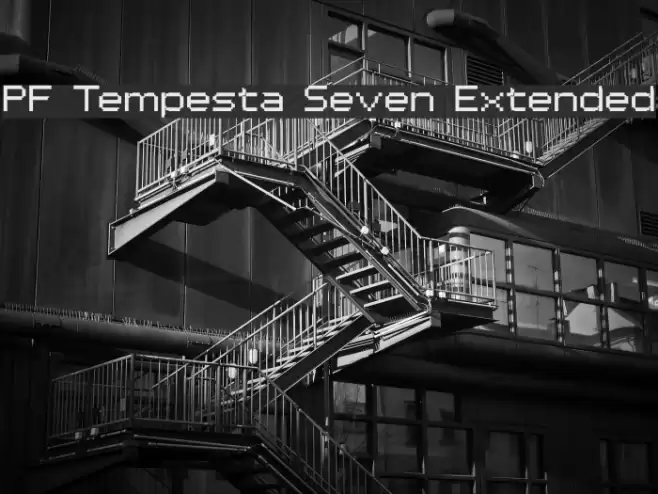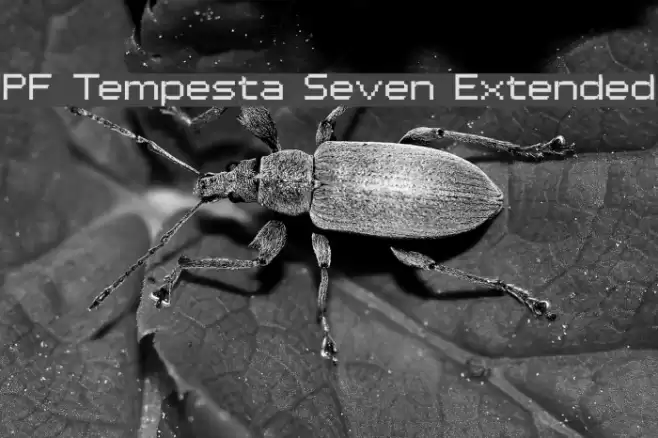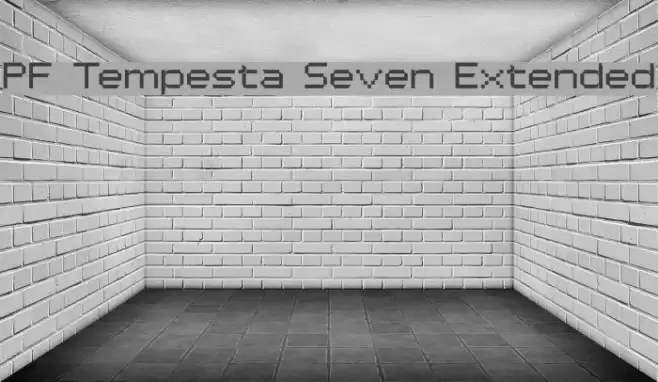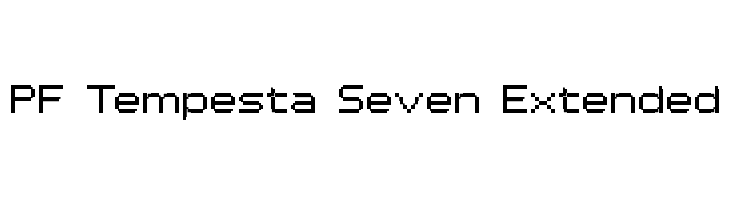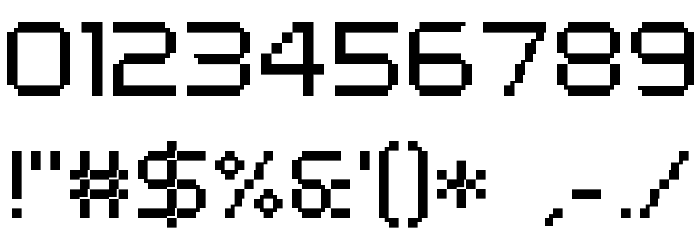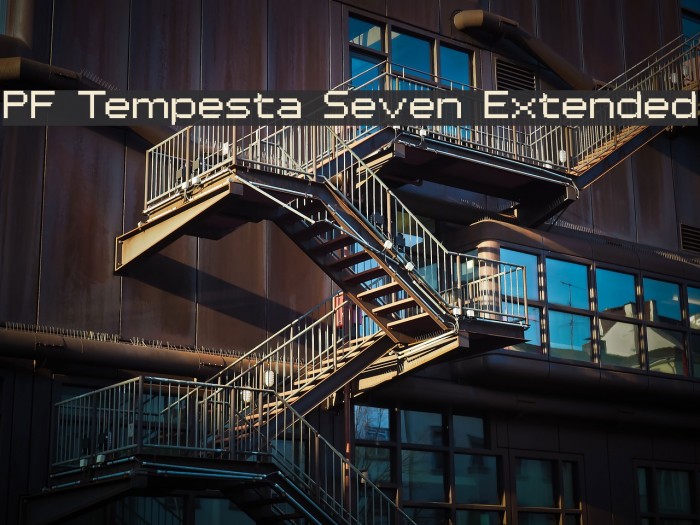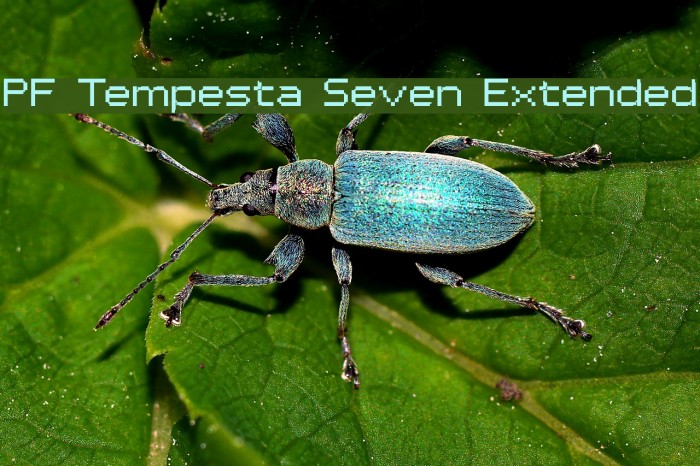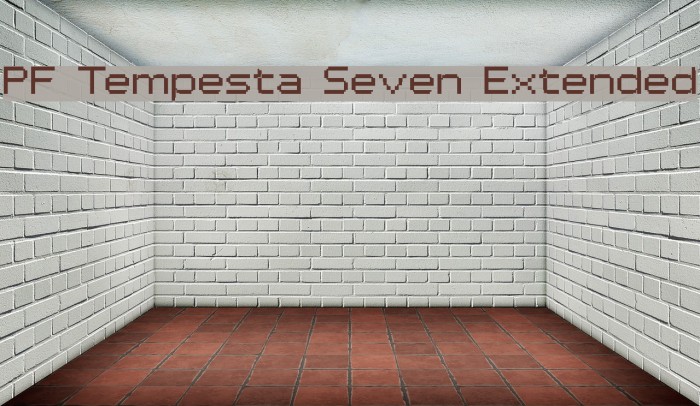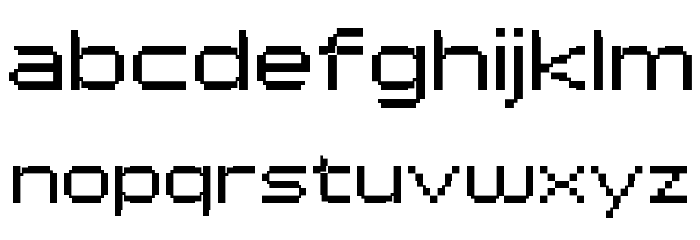
PF Tempesta Seven Extended Font
PF Tempesta Seven Extended Description
This font features a bold, geometric design with a distinctly digital aesthetic. The characters are constructed with sharp, angular lines and a blocky structure, reminiscent of early computer or arcade game typography. The uppercase and lowercase letters maintain a consistent height, contributing to a uniform appearance across text. The numerals and special characters follow the same design principles, ensuring a cohesive look. The font's extended width gives it a commanding presence, making it ideal for attention-grabbing headlines or titles. Its pixelated style evokes a sense of nostalgia while maintaining a modern edge.
A bold, geometric font with a digital, pixelated style and extended width from Pixel fonts.
- Proposed Projects: Ideal for retro-themed designs, video game graphics, tech branding, and digital art projects.